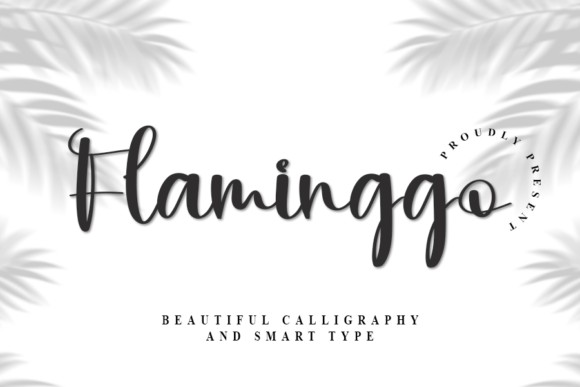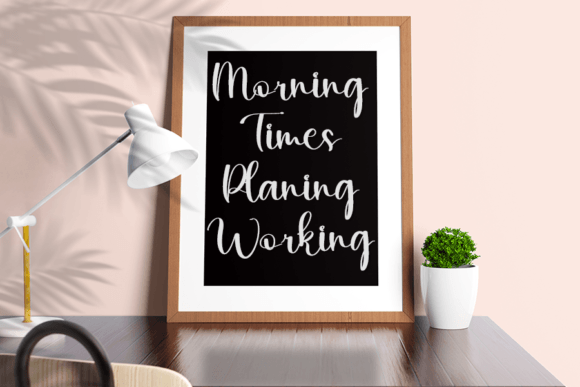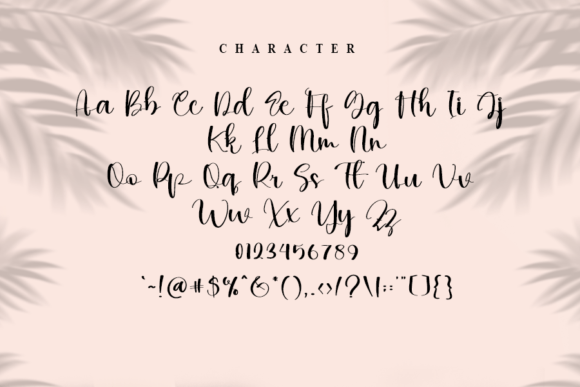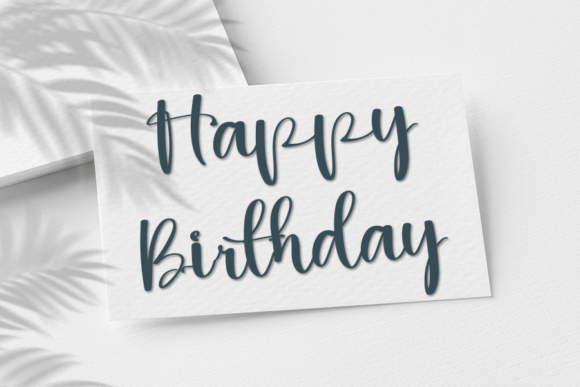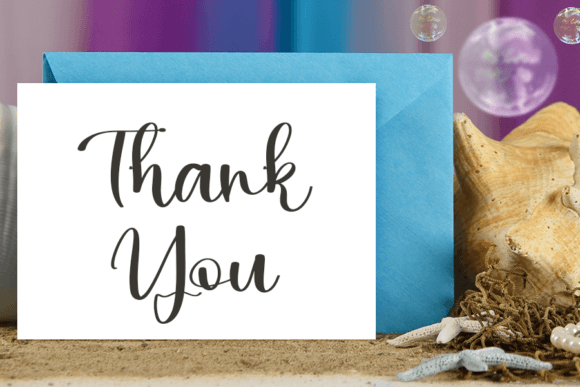
Flaminggo Font
About Flaminggo Font
“Flaminggo” is a beautiful and refined handwritten font that exudes both classiness and modernity. This elegant typeface is an excellent choice for a wide range of design applications, including logos, branding, invitations, stationery, wedding designs, social media posts, and many other creative projects.
One of the standout features of “Flaminggo” is its ability to convey a sense of sophistication and style. The refined handwritten style of the font adds a touch of elegance and authenticity to your text, making it perfect for projects that aim to create a memorable and chic impression.
The versatility of “Flaminggo” shines through in its adaptability to various design contexts. Whether you’re working on establishing a unique brand identity, crafting exquisite wedding designs, designing eye-catching social media posts, or creating stylish invitations, this font brings a sense of creativity and refinement to your work.
Visualize using “Flaminggo” for your brand’s logo and how it communicates a sense of elegance and modernity to your target audience. Picture incorporating this font into your wedding designs, adding a touch of sophistication and class to your special day. When you choose “Flaminggo” for your projects, you’re selecting a font that elevates them, making them stand out with a level of grace and style.
In conclusion, “Flaminggo” is more than just a font; it’s a design asset that brings beauty and refinement to your creative projects. Its classy and modern handwritten style makes it an ideal choice for a wide range of applications, ensuring that your designs are both elegant and chic. Consider “Flaminggo” as your go-to font for adding a touch of sophistication and style to your work, resulting in creations that leave a lasting and impressive impact.